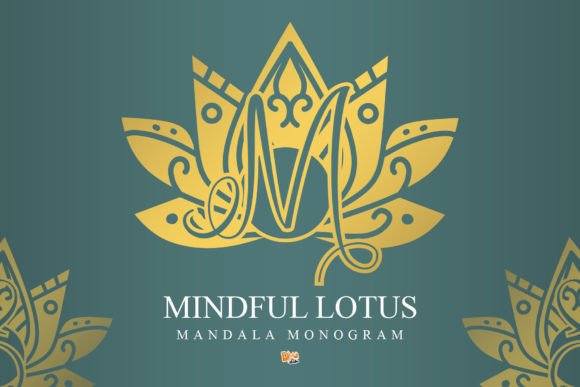
Step into a world of enchanting beauty and delicate artistry with the Mindful Lotus Mandala Monogram Font. Dive into the realm of creativity, where your imagination blooms like a lotus flower, and your designs come alive with elegance and grace. This decorative font, a masterpiece by dmletter31, is not just a collection of letters; it's an invitation to embark on an artistic journey, to express your unique style, and to captivate the hearts of those who lay their eyes upon your creations.
With its intricate patterns, flowing lines, and captivating monograms, the Mindful Lotus Mandala Monogram Font transcends the boundaries of ordinary typography. Each character is meticulously crafted, infused with the essence of mindfulness and the harmony of the lotus flower. Let your words dance upon the page, adorned with the beauty of this extraordinary font, and watch as your designs transform into breathtaking works of art.
Unleash your creativity and explore endless possibilities with this versatile font. Its delicate strokes and graceful curves make it perfect for logos, branding, invitations, wedding stationery, and any project that calls for a touch of sophistication and allure. Whether you're a seasoned designer or just starting your creative journey, the Mindful Lotus Mandala Monogram Font will elevate your designs to new heights, adding a layer of enchantment and intrigue that leaves a lasting impression.
So, immerse yourself in the beauty of the lotus, let your imagination soar, and let the Mindful Lotus Mandala Monogram Font guide you on a creative expedition like no other. Embrace the power of mindful design, and watch as your creations blossom into masterpieces that resonate with elegance, individuality, and timeless appeal.